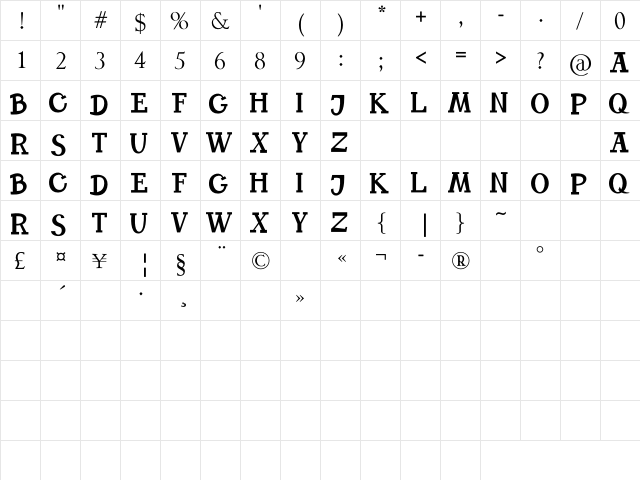
TOFFEE Regular
| Designer | Fahri Rizal |
Design Context for TOFFEE Typeface
TOFFEE is a composed and adaptable typeface that performs quietly and consistently across a wide range of design contexts.